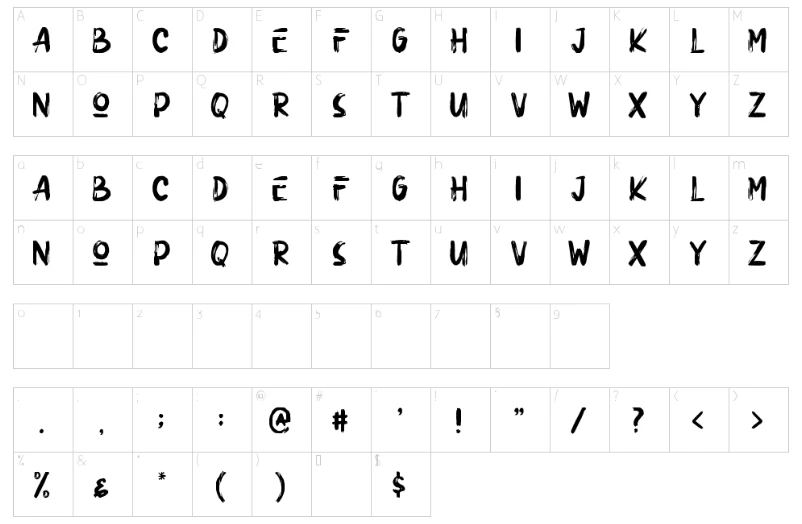
The Ultra brush font is a completely new brush typeface that is so versatile it can be used for almost anything. It’s ideal for all of your requirements and products. Garisman Std. created and shared the Ultra Font. THE ULTRA was conceived as a result of the creator’s current interest in display fonts. The typeface is multilingual and supports 20 languages.
More than 50 swash styles are included in this lovely typeface. The installation procedure is quite simple. Ligature support is also included in the font. Uppercase, lowercase, Numeric, and certain Special character and alternate characters are also included in the typeface. TTF and OTF are the two versions available for this font. The typeface is PUA Encoded, which means it can be used without the use of any additional design program.The Font is compatible with Windows, Apple/Mac, Linux, Cricut, Silhouette, and other cutting machines.
ULTRA BRUSH arose from the desire of the designer of currently available display typefaces. Ultra Brush was created to satisfy the needs of designers who needed to create posters, t-shirts, quotations, branding, packaging, logos, advertisements, and more. The font is most commonly seen on large banners, such as billboards or posters, with a bold feel.
The Ultra Brush Font View
| Name | The Ultra Brush Font |
| Style | Script |
| Designer | Garisman Std. |